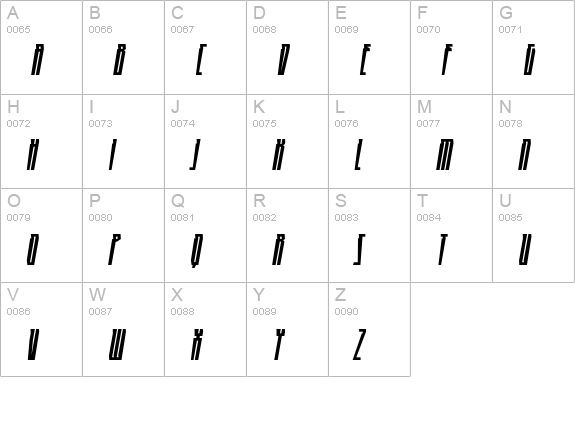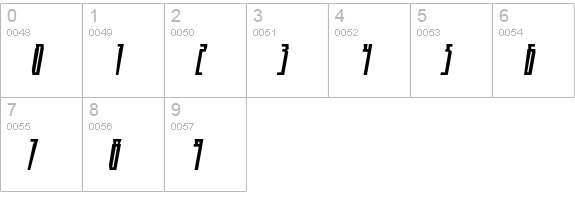
HighRise BB Italic Font Details
HighRise BB Italic is a distinctive, italic variant in the HighRise typeface family \xE2\x80\x94 well suited to design and typography projects.
HighRise BB Italic font is a unique and modern typeface that exudes sophistication and elegance. Its sleek and stylish design makes it perfect for adding a touch of class to any project. The italicized letters give a sense of movement and fluidity, making this font perfect for titles, headings, and other display purposes. What sets HighRise BB Italic font apart is that it is completely free to download at FontsMarket.com. This means you can access this high-quality font without any cost, making it a valuable addition to your font collection. Whether you're working on a professional design project or simply want to elevate your personal creations, HighRise BB Italic font is the perfect choice for adding a touch of sophistication and style. Download it now and enhance your designs with this elegant and versatile typeface.